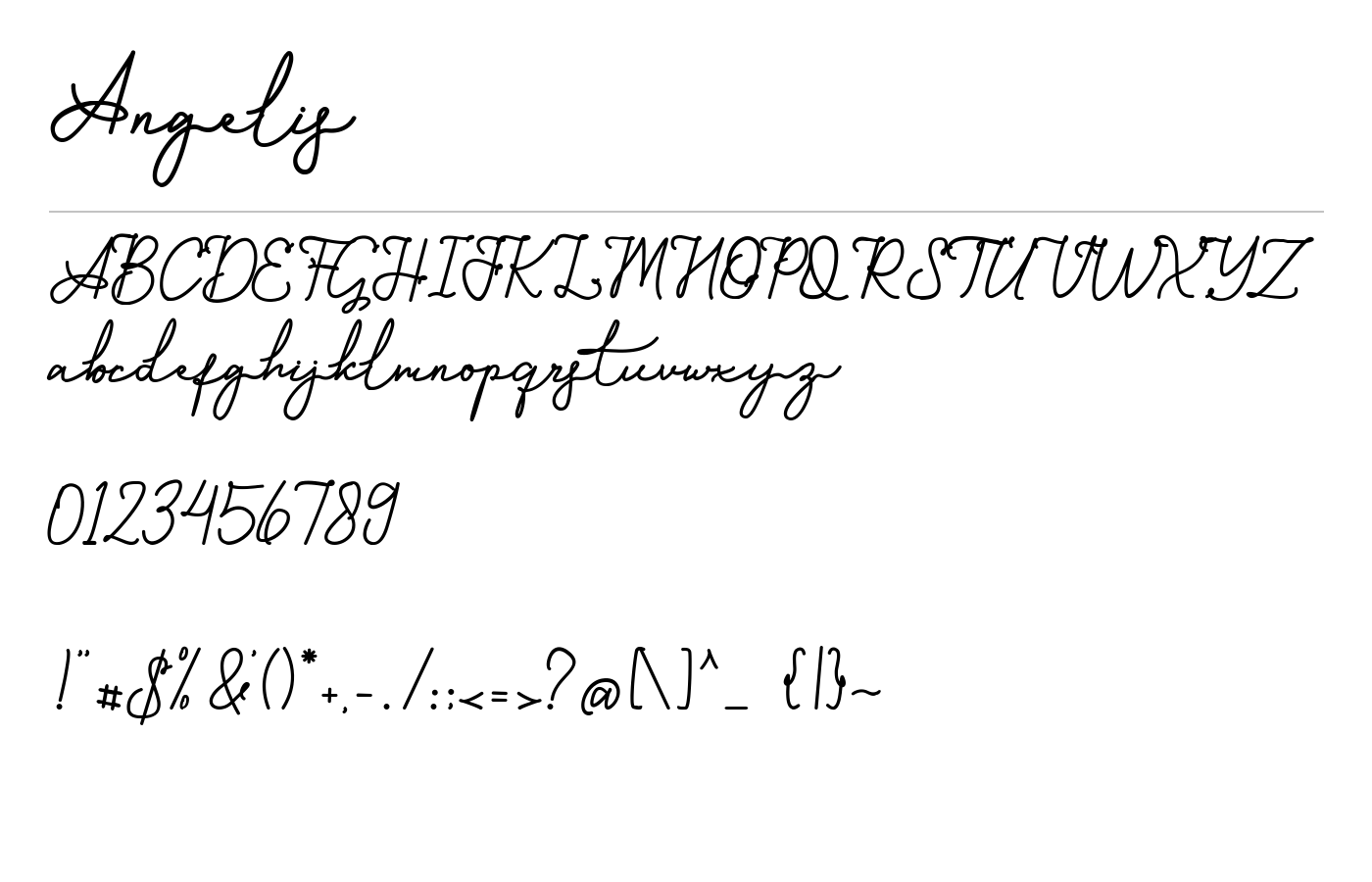
Angelis is a delicate, elegant script font characterized by its fine, smooth strokes and flowing letterforms that mimic natural handwriting. With a narrow width and moderate height, this font exudes a sophisticated and graceful personality, making it perfect for invitations, branding, and any design that calls for a personal yet refined touch. Its clean, cursive style works beautifully in projects aiming to convey charm, creativity, and a sense of luxury.
Angelis Font
About Angelis Font
| Font family | Angelis Font |
| Designer | Tio Yulianto |